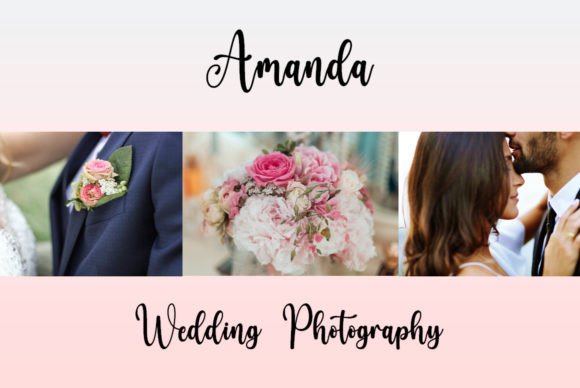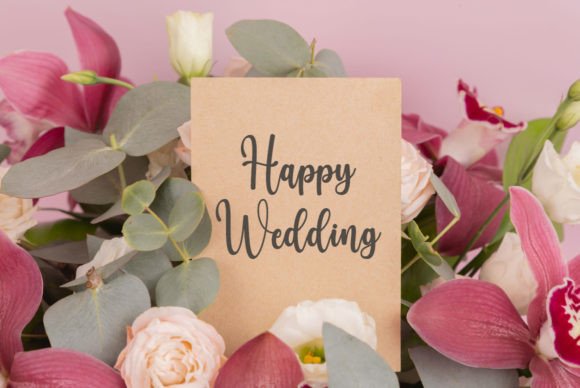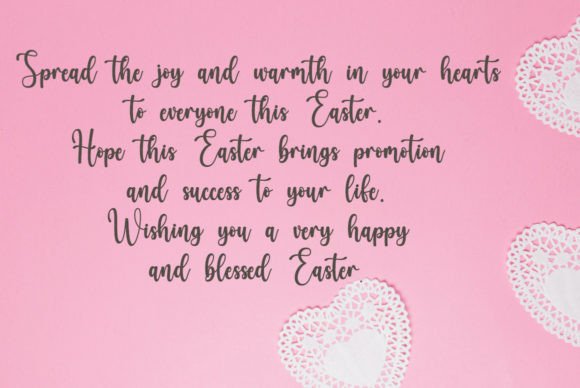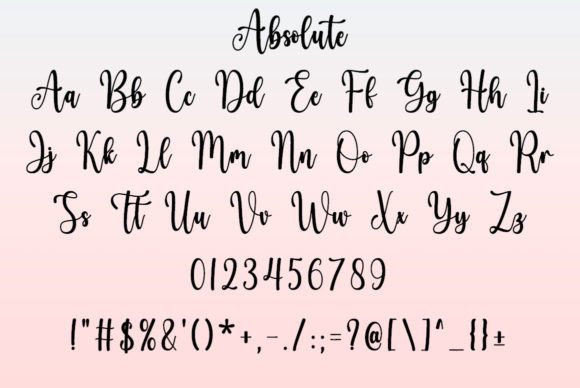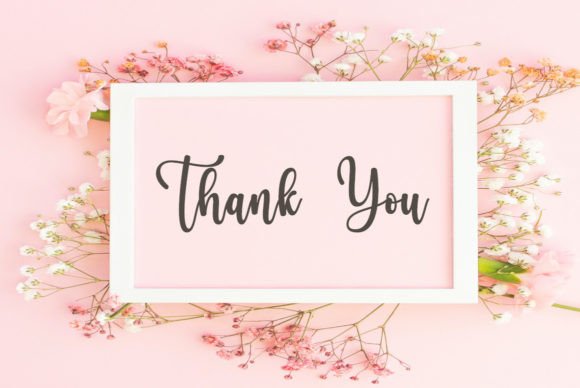
The Ultimate Go-To Font: Discovering Absolute Font
I’ll never forget the time I was working on a craft project, pouring my heart and soul into creating the perfect greeting card for a friend’s birthday. I had the design all planned out, but as I sat in front of my computer, I just couldn’t seem to find the right font to bring it all together. The project was stalling, and my frustration was growing by the minute. That’s when I stumbled upon Absolute Font, and let me tell you, it was love at first sight! 💕
An Honest Review of Absolute Font
Absolute Font is a simple and friendly handwritten font that has quickly become my go-to for all sorts of creative projects. Here’s what I love about it:
- ✨ Easy to read: The font is clear and legible, making it perfect for digital designs, presentations, and even crafts.
- ✅ Versatile: Whether you’re creating a greeting card, a blog post, or a social media graphic, Absolute Font fits right in.
- 💕 Friendly vibe: The font has a warm and approachable feel that’s perfect for projects where you want to connect with your audience.
Of course, no font is perfect, and Absolute Font has a few small quirks:
- ⚠️ Limited stylistic alternates: While the font has a few variations, it’s not as extensive as some other fonts on the market.
- 🤔 Not ideal for body text: While it’s easy to read, Absolute Font is better suited for headings and titles rather than large blocks of text.
The Story Behind Absolute Font
While I couldn’t find any information on the designer’s inspiration, I like to think that Absolute Font was created with the intention of making design more accessible and fun. Perhaps the designer, tired of complicated fonts and tedious design processes, set out to create a font that would bring a smile to people’s faces. Whatever the inspiration, it’s clear that Absolute Font has become a beloved font among designers and crafters alike.
| Font Name | Absolute Font |
| Author | Hardiboy Design |
| What is Absolute Font best used for? | Absolute Font is perfect for crafts, digital design, presentations, and making greeting cards. |
| Is Absolute Font easy to read? | Yes, Absolute Font is clear and legible, making it easy to read. |